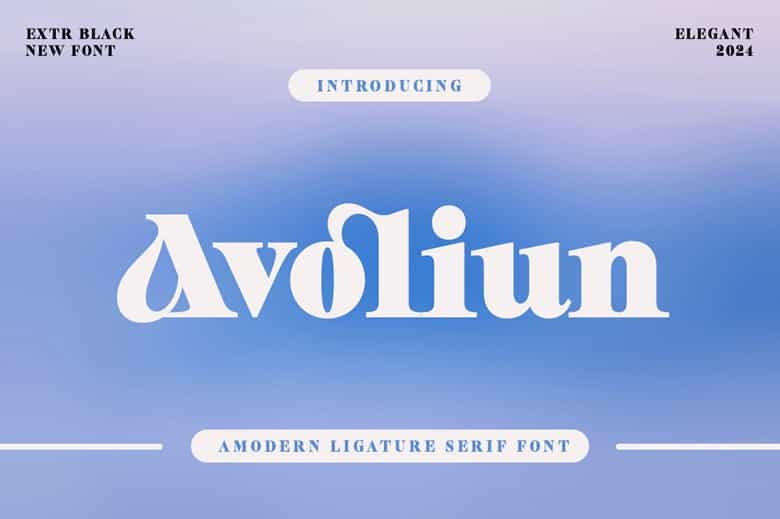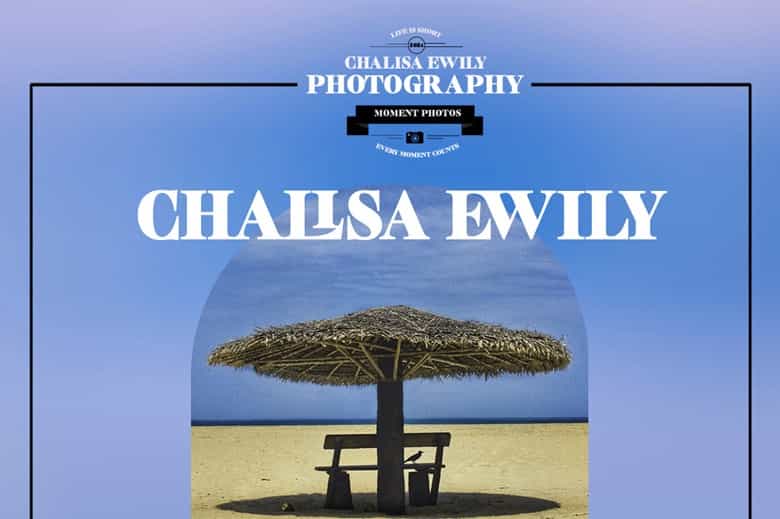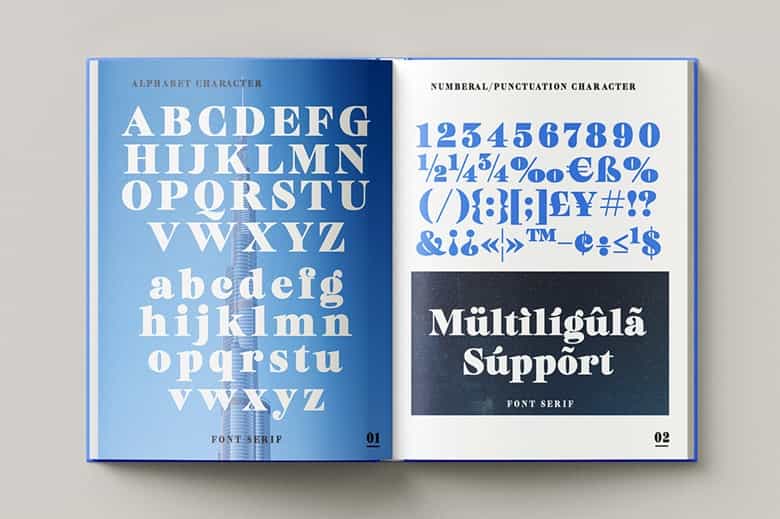
Avoliun is a contemporary ligature serif typeface with a contemporary and sophisticated appearance, and smooth lines. It has clear and pleasant lettershapes which makes it suitable for numerous international branding solutions, including logos, posters, and official logos.